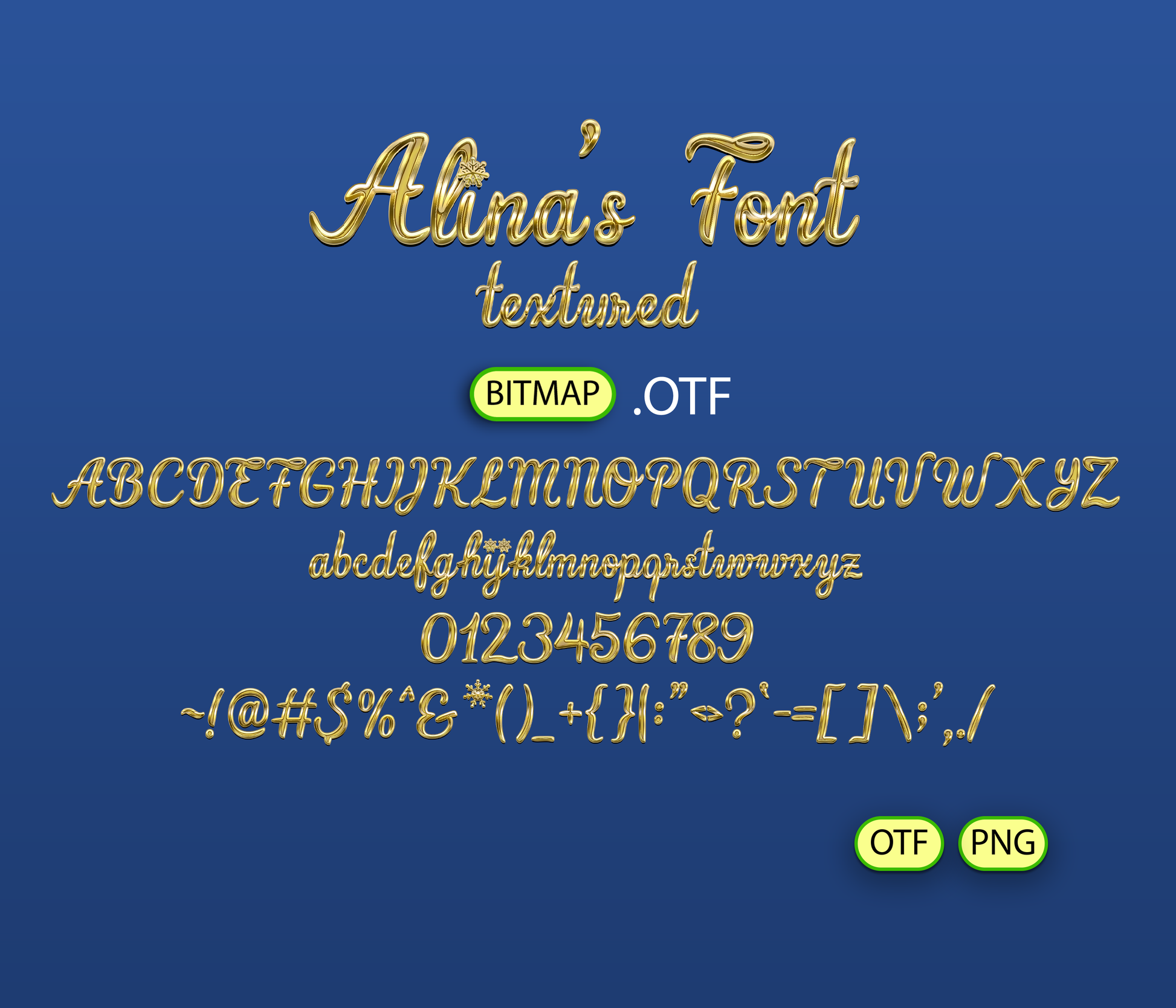
Classic Christmas Font Textured
Step into the timeless world of traditional holiday celebrations with our Classic Christmas Font, capturing the essence of elegant festive cheer and cherished seasonal traditions. Perfect for holiday crafters, sublimation designers, small business owners, and creative professionals, this font brings the refined, enduring spirit of classic Christmas to your projects. Create heartwarming greeting cards, merchandise, or digital content with the sophisticated energy of the holiday season.
Festive Multicolor Typography for Holiday Crafts & Seasonal Design
Our Classic Christmas Font features vibrant, timeless letterforms with holiday-themed textures reflecting the world of traditional decorations and elegant seasonal joy.